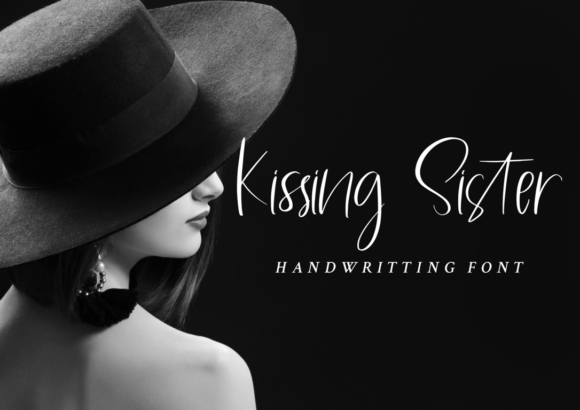
The Perfect Kiss: Discovering the Kissing Sister Font
Have you ever been browsing through design inspiration boards and stumbled upon a beautifully crafted project that makes you swoon? For many of us, it’s that moment of pure design magic that sets our creative wheels in motion. As designers, we’re always on the lookout for the perfect tools to help us bring our visions to life. And that’s exactly where the Kissing Sister Font comes in – a chic, refined script font that exudes sophistication and elegance.
This versatile font is designed to elevate any project, from wedding invitations to luxury branding. With its stylish alternates and ligatures, the Kissing Sister Font is the perfect match for designers who crave a touch of refinement and whimsy. Whether you’re working on a high-end fashion campaign or a romantic wedding suite, this font is sure to impress.
Kissing Sister Font Key Features
- Font Family: Kissing Sister is a unique script font designed for informal and creative purposes.
- Unique Characteristics: Features a playful, handwritten style with exaggerated letterforms and expressive connections between letters.
- Font Weight: Available in a single weight, making it suitable for titles, headings, and short paragraphs where a casual, approachable tone is desired.
Kissing Sister Font Review
I recently had the chance to work with the Kissing Sister font, and overall, I’m quite impressed. Here’s my honest review.
- Unique Character: The Kissing Sister font has a distinct, playful character that sets it apart from other fonts. Its whimsical feel is perfect for designs that need a touch of personality.
- High-Quality Rendering: The font renders beautifully at various sizes and resolutions, ensuring that it looks great on any device or screen.
- Good Legibility: The font’s design is well-balanced, making it easy to read even in smaller sizes.
- Not Ideal for Large Blocks of Text: Due to its playful nature, the Kissing Sister font may not be the best choice for large blocks of text, as it can become overwhelming.
- Limited Support: I found some compatibility issues with certain software and operating systems, which may be a concern for designers who work with a variety of tools.
Overall, I’m a fan of the Kissing Sister font. Its unique character and high-quality rendering make it a great choice for designs that need a touch of whimsy. However, its limitations should be considered before using it for large blocks of text or in complex design projects.
Getting the Most Out of Kissing Sister Font
To get the most out of the Kissing Sister font, try the following tips:
- Use the font in bold or italic styles to add emphasis to your text.
- Combine the Kissing Sister font with other fonts to create a unique and eye-catching design.
- Experiment with different font
Alternatives to Kissing Sister Font
Playfair Display is an elegant and luxurious serif font ideal for use in high-end branding, magazine covers, and formal invitations. Its classic and sophisticated design makes it a great alternative to Kissing Sister Font for designers looking to add a touch of sophistication to their designs.
Playfair Display has a more classic and traditional feel compared to Kissing Sister Font, which has a more modern and whimsical feel. While Kissing Sister Font is perfect for designs that need a playful touch, Playfair Display is better suited for designs that require a sense of luxury and elegance.
What is the recommended font size for using Kissing Sister Font?
The recommended font size for Kissing Sister Font varies depending on the intended use and design context. As a general guideline, use font sizes between 12pt and 48pt for body text, and larger font sizes (such as 72pt or 96pt) for headings and titles. Experiment with different font sizes to achieve the desired visual effect.